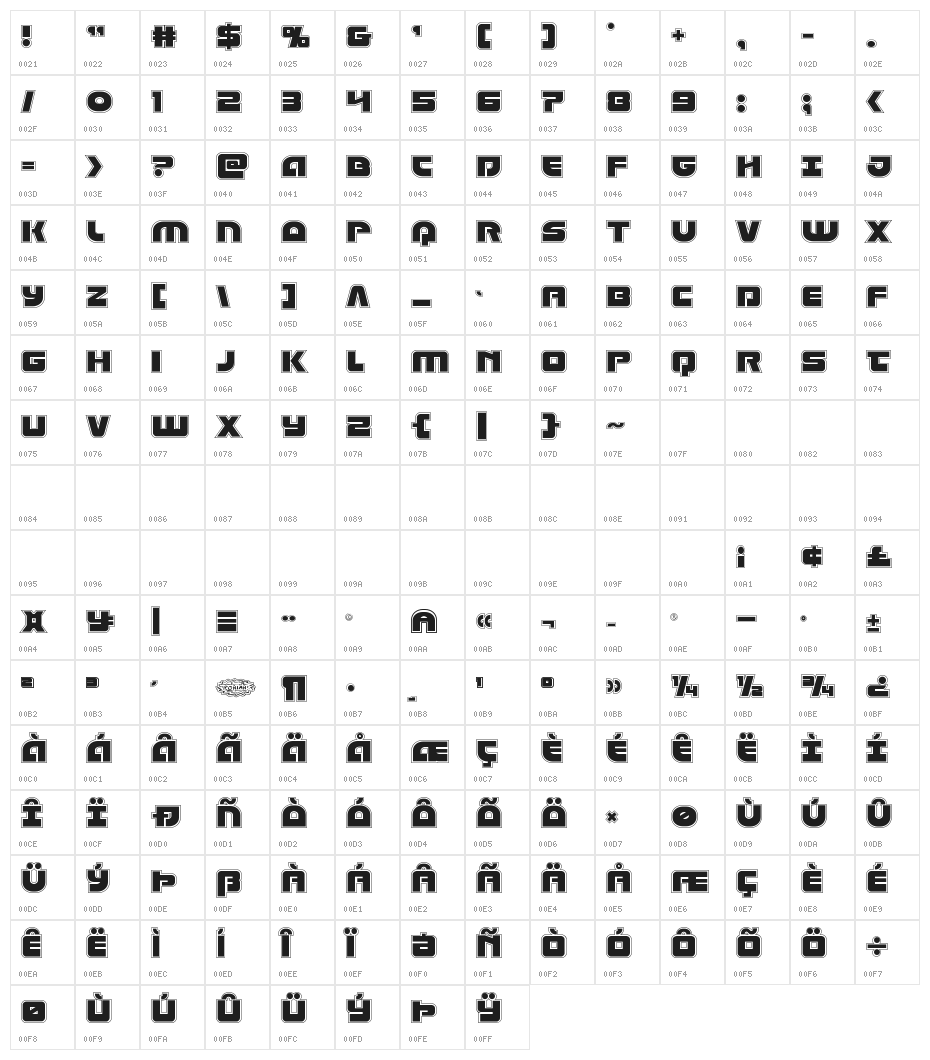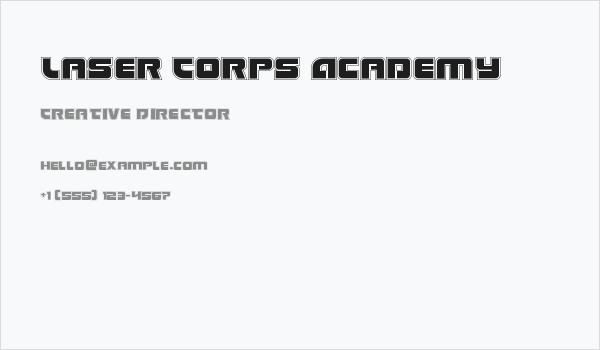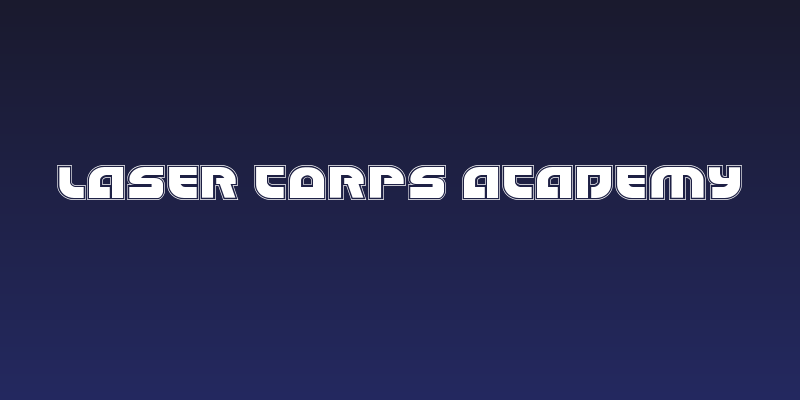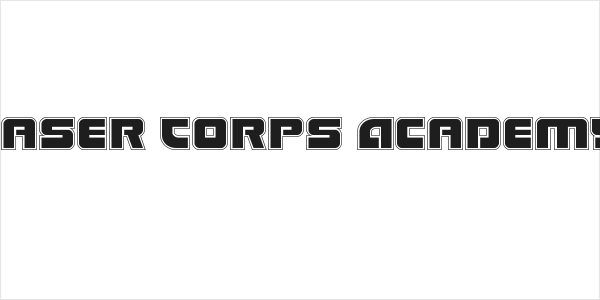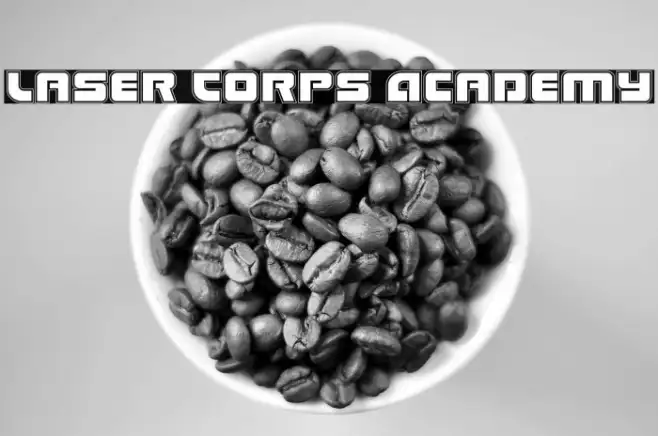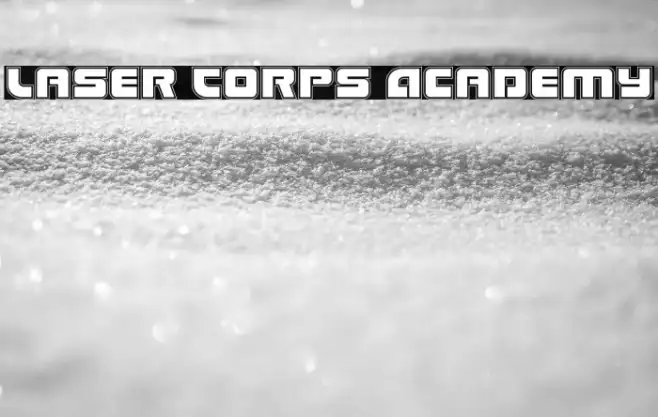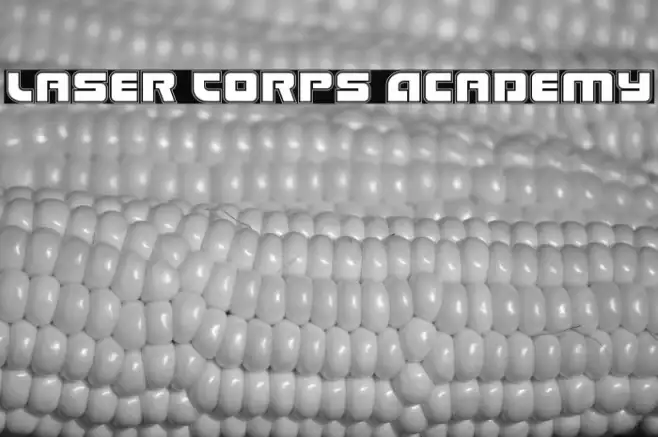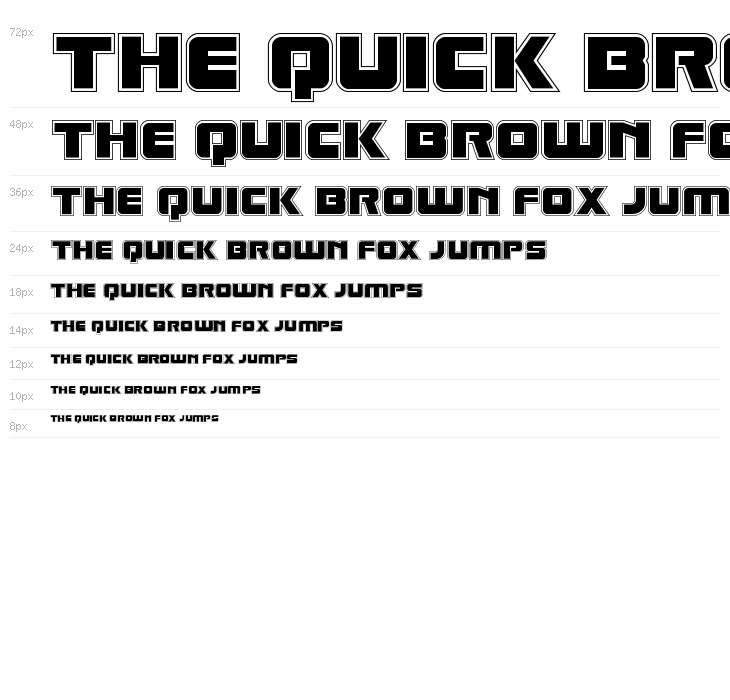
Laser Corps Academy Font
Laser Corps Academy Description
This font features a bold, futuristic design with a strong geometric influence. The characters are constructed with thick, block-like shapes that give a sense of solidity and modernity. The uppercase letters are uniform in height, creating a cohesive and structured appearance. The numbers and special characters maintain the same boldness, ensuring consistency across all glyphs. The font's style is reminiscent of digital or sci-fi themes, making it suitable for projects that require a modern and technological aesthetic.
| Proposed Projects | Ideal for sci-fi themed designs, technology branding, video game titles, and futuristic posters. |